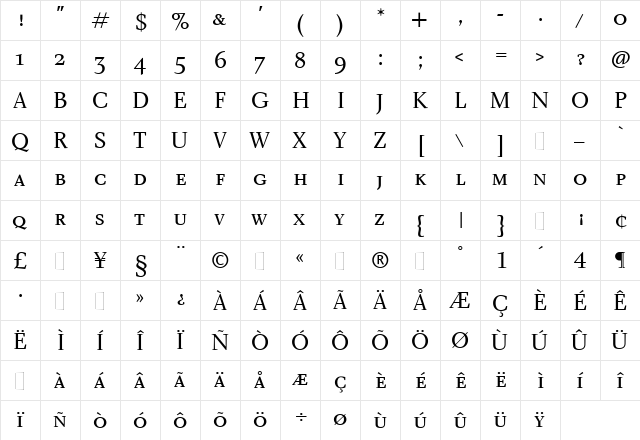
Charlotte Small Caps Regular
Design Context for Charlotte Small Caps Typeface
Charlotte Small Caps offers clean, dependable letterforms without strong stylistic allegiance, making it a practical choice for designers who need flexibility.
Pro Tip: Use Charlotte Small Caps in both headline and body roles to test its range before committing to a single application.